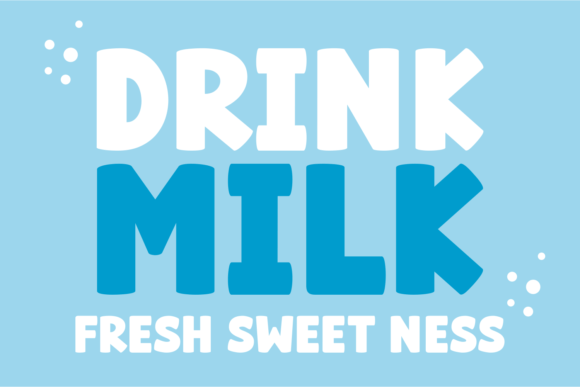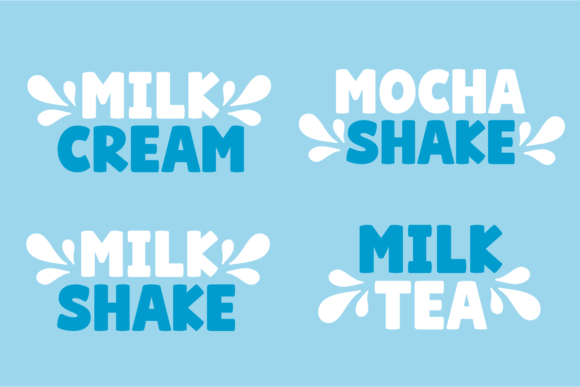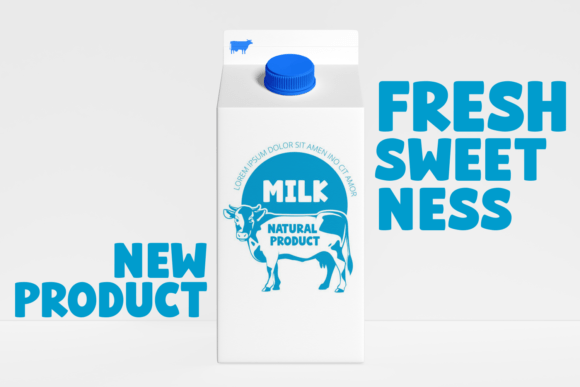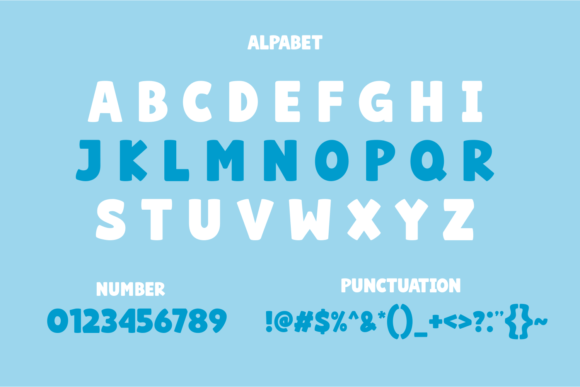
Introduction to Milk Fields Font
Have you ever stared at a blank design canvas, struggling to find the perfect font to bring your creative project to life? It’s a feeling we’ve all been there, and it’s especially frustrating when you’re working on a tight deadline. But what if I told you that there’s a font that could change the game for your next design? Enter the Milk Fields Font, a bold and eye-catching display font that’s about to become your new best friend.
With its thick, smooth letters and modern, playful look, the Milk Fields Font is perfect for titles, logos, and designs that need to stand out from the crowd. Plus, it’s incredibly easy to read, making it a valuable resource for designers who want to convey their message in a clear and concise way. Whether you’re working on a free download or a high-quality commercial project, this font is sure to bring a touch of sophistication and style to your design.
Key Features of Milk Fields Font
- High-quality design resource with a unique, hand-drawn style suitable for creative projects.
- Features a transparent background, making it easy to overlay on any image or design without compromising visual integrity.
- Designed to work well at various resolutions, including 72 dpi and 300 dpi, for use in both web and print designs.
- Includes a range of characters, including uppercase and lowercase letters, numbers, and punctuation marks, to cater to diverse design needs.
- Perfect for designers looking for a distinctive, artistic touch in their creative projects, from digital art to branding materials.
Honest Review: Milk Fields Font
I recently stumbled upon the Milk Fields Font while searching for a design resource to enhance my creative project. I was drawn to its unique, hand-drawn style and was excited to see how it would work for my design.
- Unique, hand-drawn style that adds a personal touch to designs
- High quality font that works well for various creative projects
However, there are a few limitations to the font. The ⚠️ limited character set may not be suitable for longer text-based designs, and the ⚠️ lack of bold or italic variations may limit its use in certain contexts.
Overall, I’m impressed with the Milk Fields Font and would recommend it to designers looking for a high-quality, unique font for their creative projects.
Milk Fields Font
The Milk Fields Font is a versatile design resource ideal for various creative projects. This high-quality font features a transparent background, making it easy to use in a range of applications.
Getting the Most Out of Milk Fields Font
To get the most out of the Milk Fields Font, use it in combination with other design elements, such as graphics and images, to create visually appealing designs.
The Milk Fields Font is commonly used in various creative projects, including wedding invitations, business cards, and social media graphics. Its elegant and sophisticated design makes it perfect for a range of applications.